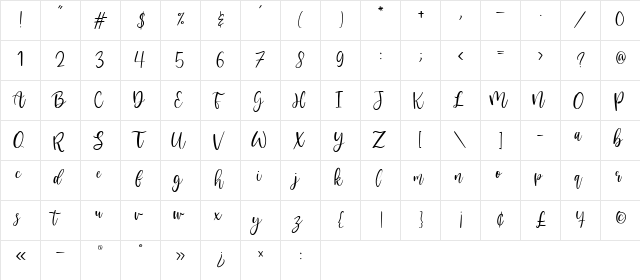
Nicholia Regular
| Designer | Balpirick 2020 |
Design Context for Nicholia Typeface
Nicholia is a composed and adaptable typeface that performs quietly and consistently across a wide range of design contexts.